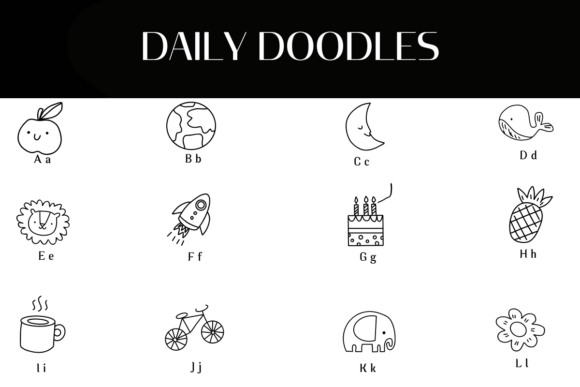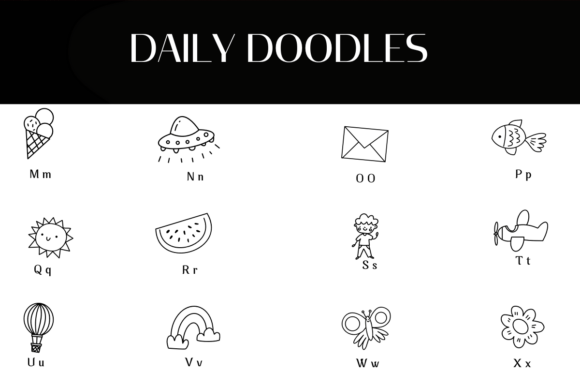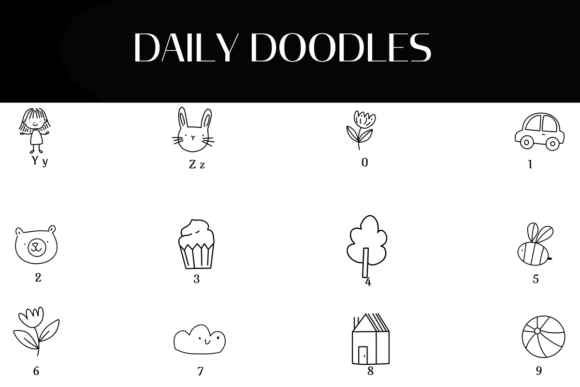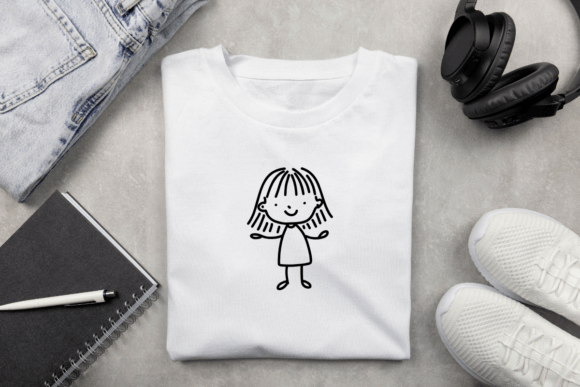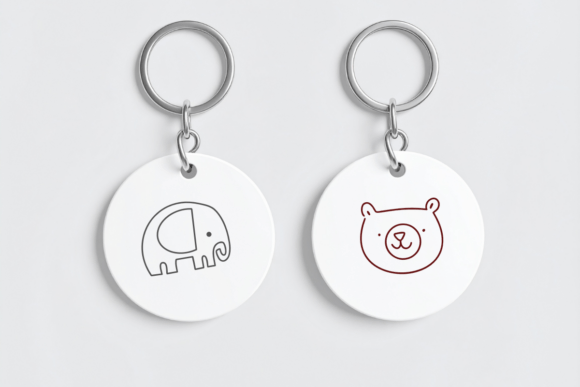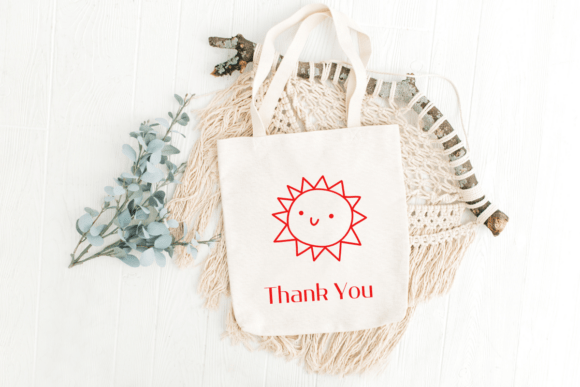
Introduction to Daily Doodles Font
Daily Doodles is a charming and versatile dingbats font that provides a library of simple, hand-drawn icons representing everyday life.
The set includes a wide variety of cheerful motifs, such as animals (lions, elephants, whales), nature elements (sun, moon, flowers), and household objects (coffee mugs, cars, houses) Characterized by a “kawaii” or cute aesthetic, the icons feature soft, rounded lines and friendly facial expressions on many of the characters.